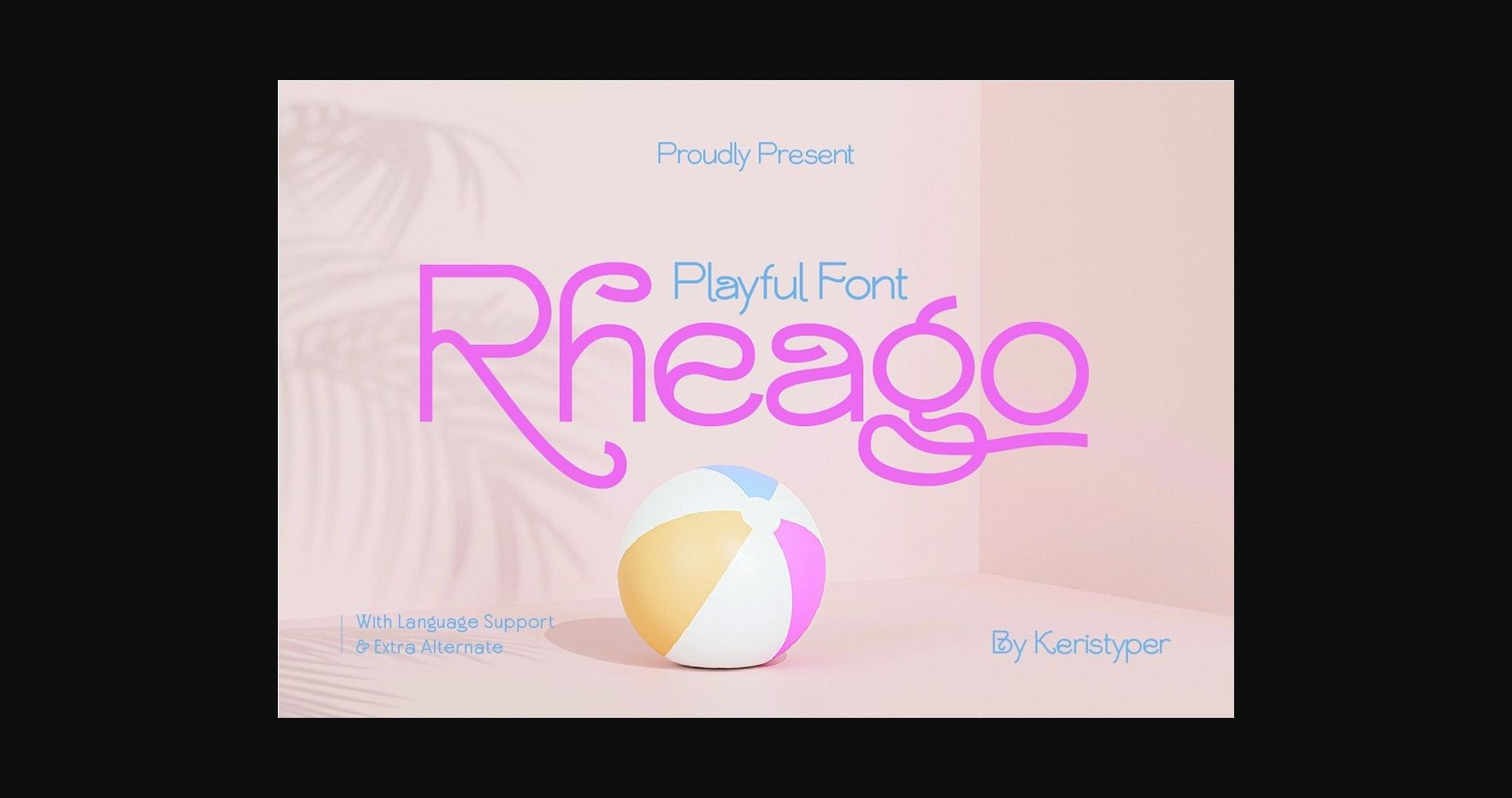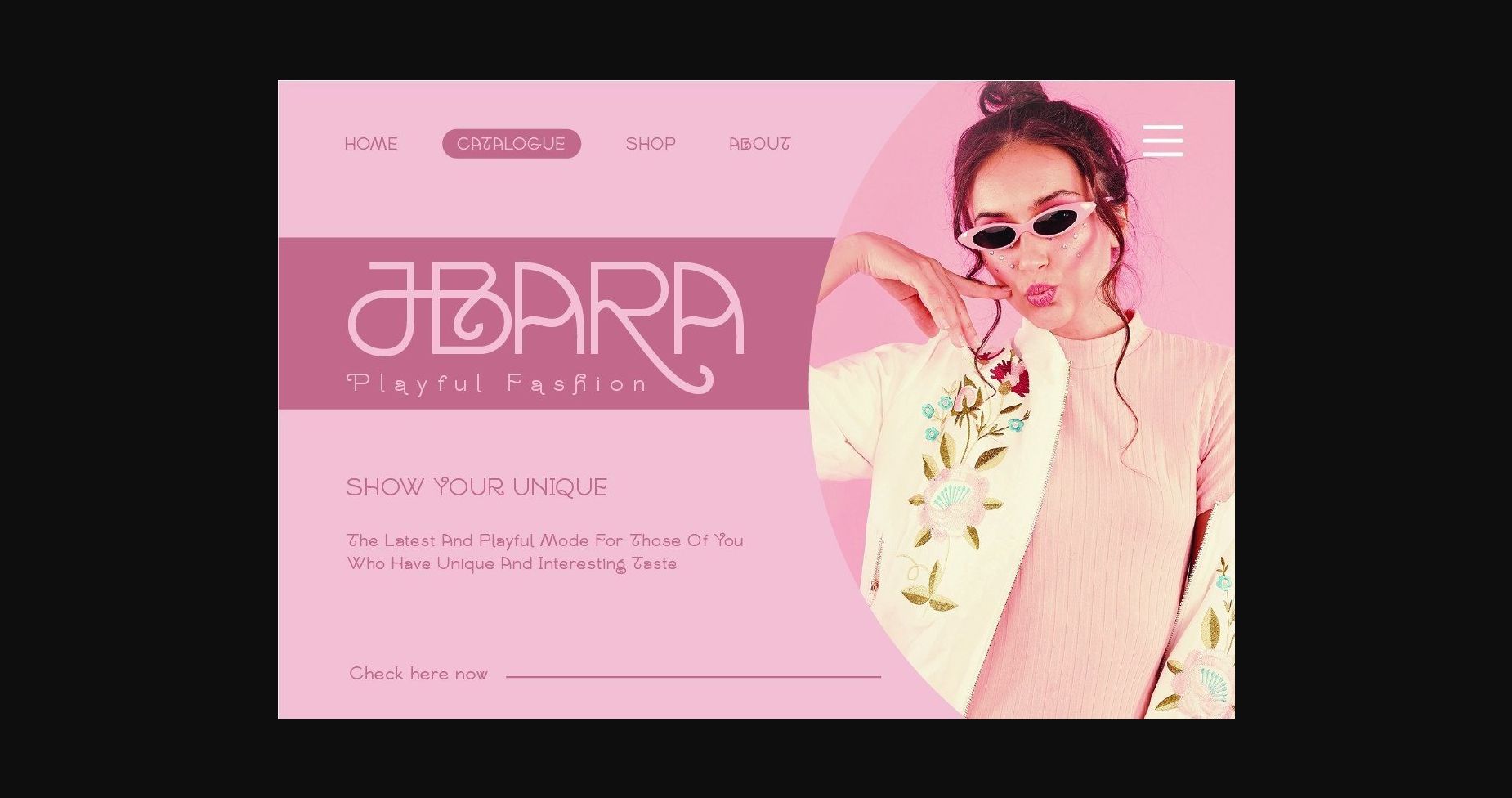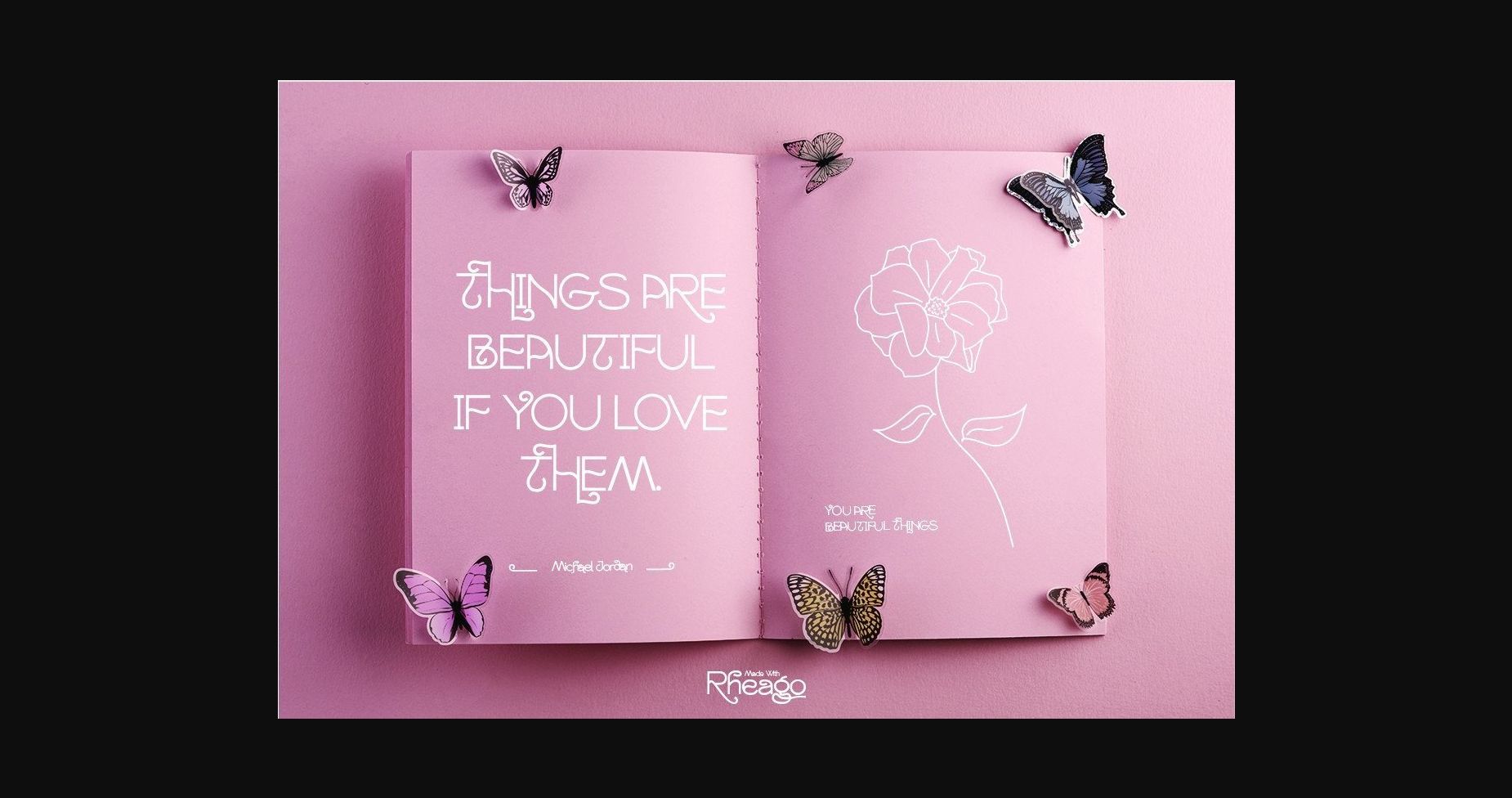
About Rheago Font
Say hello to Rheago, a sweet and cute sans serif typeface. This font is good for logo design, Social media, Movie Titles, Books Titles, short text even long text letters, and good for your secondary text together with a sans or serif.